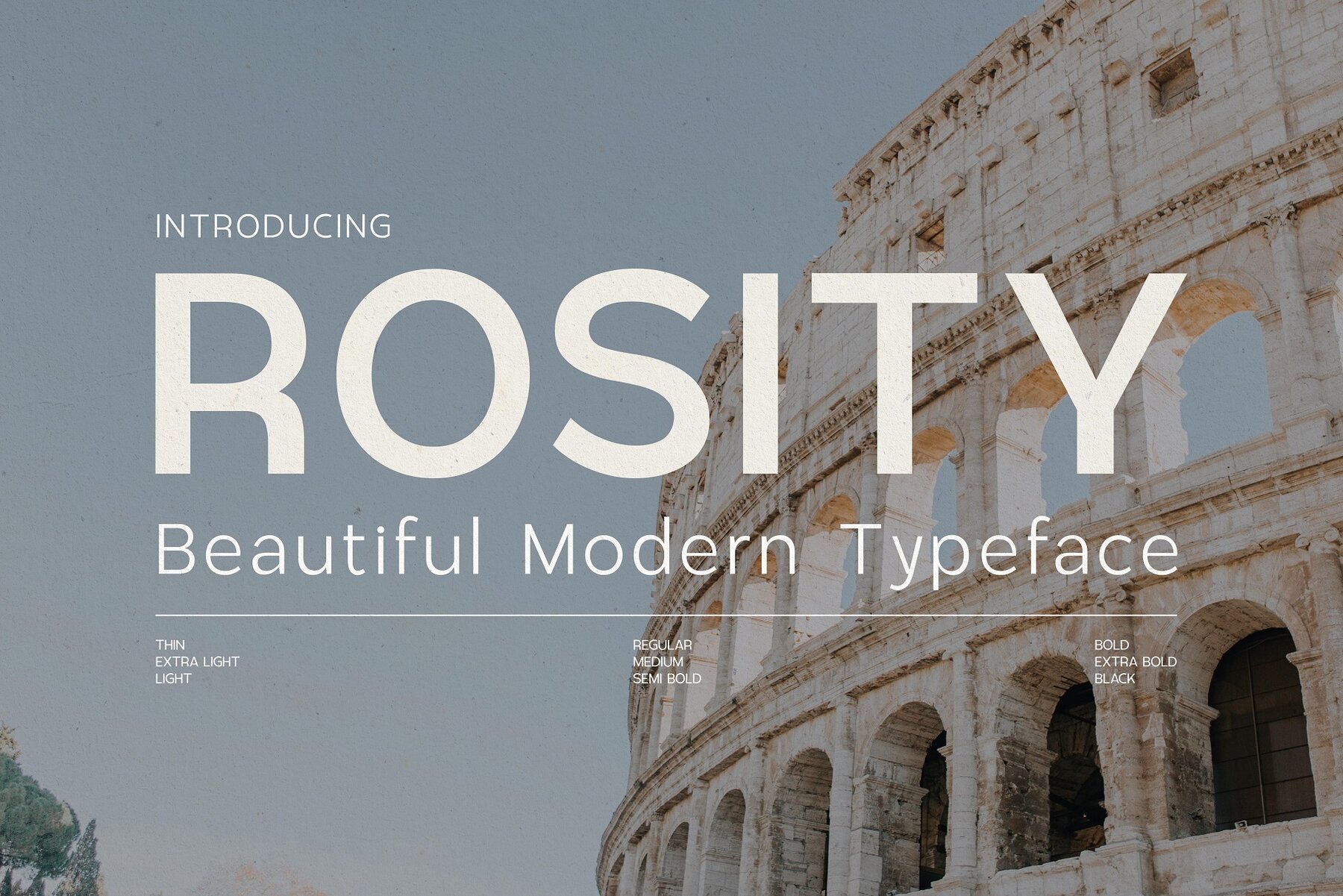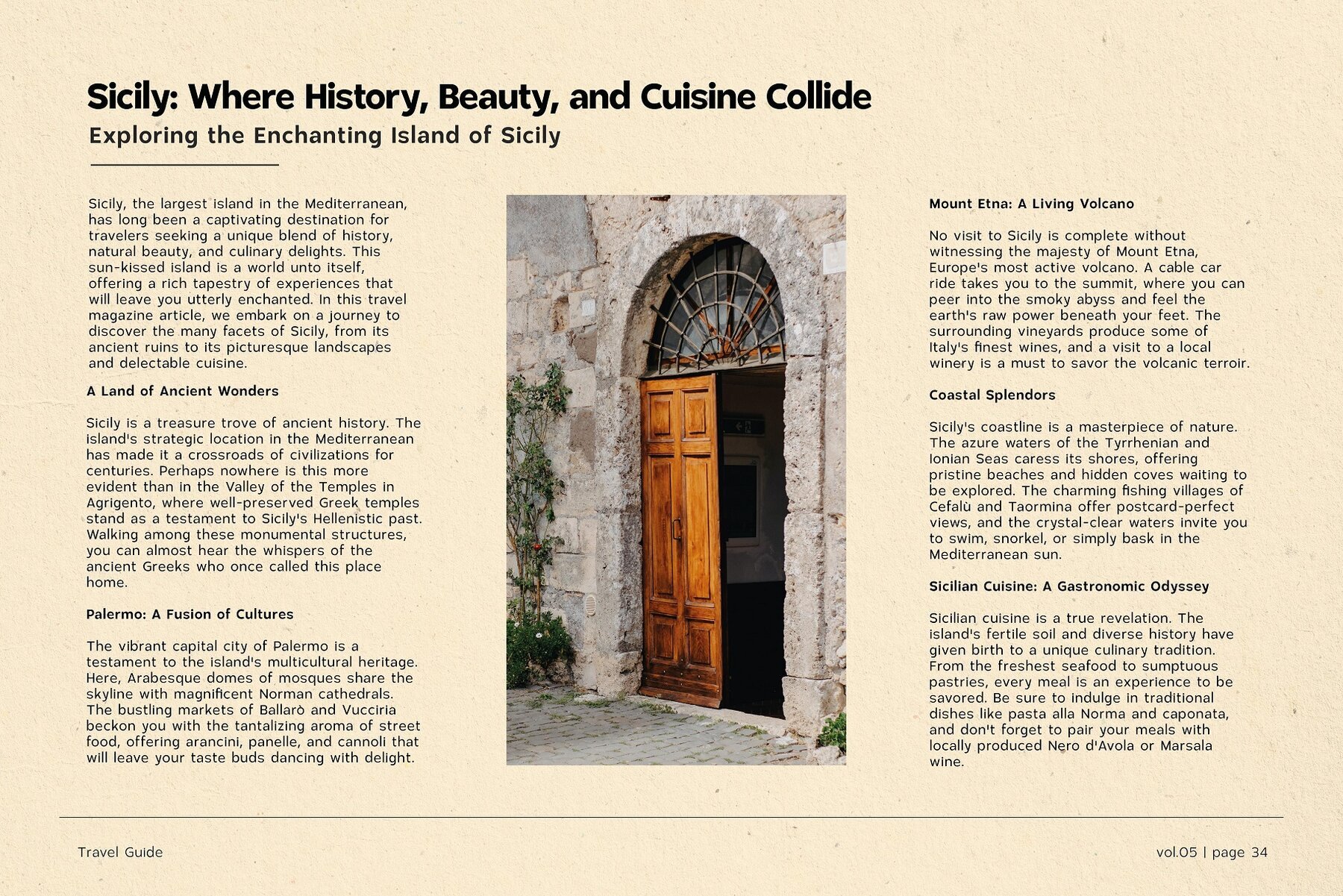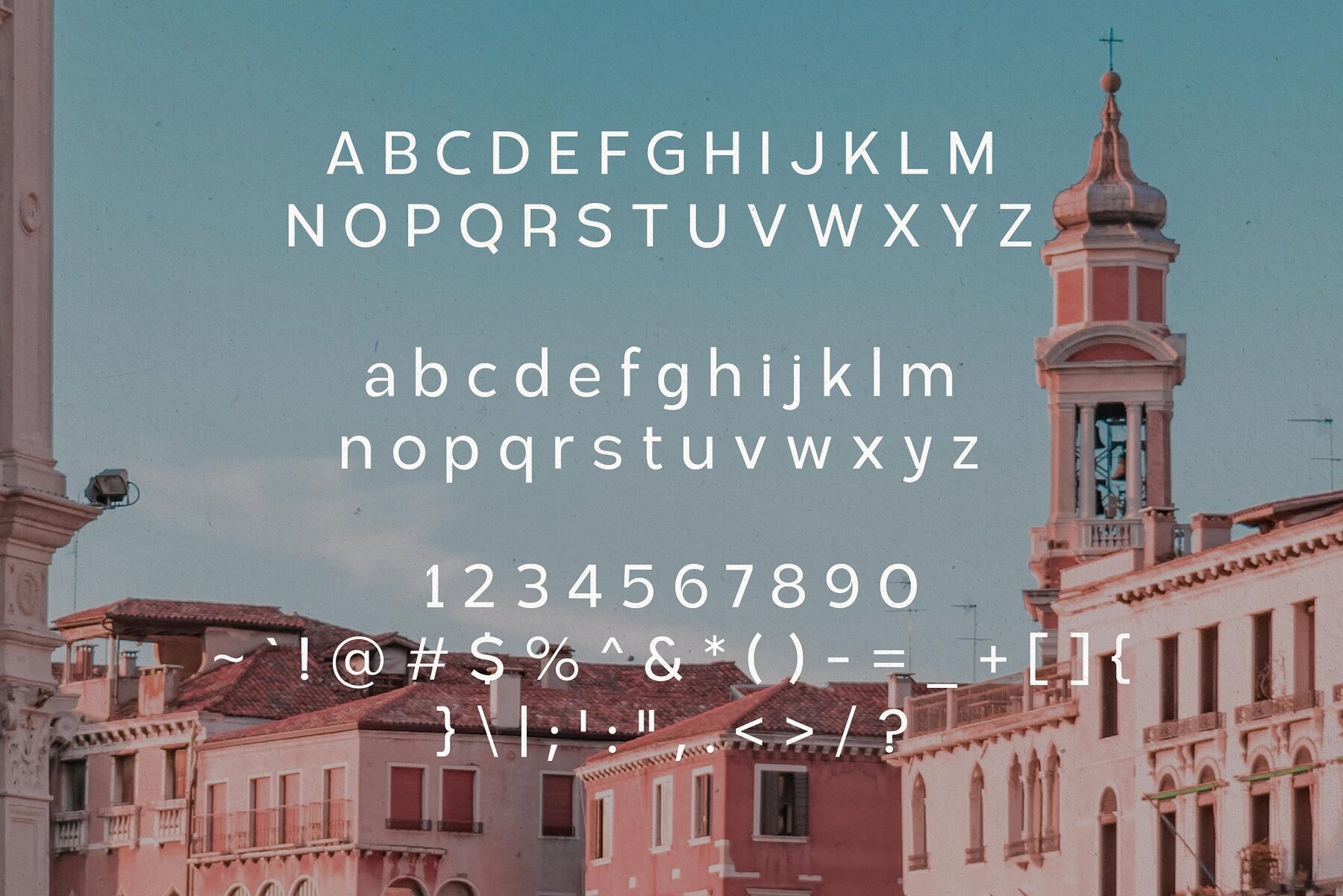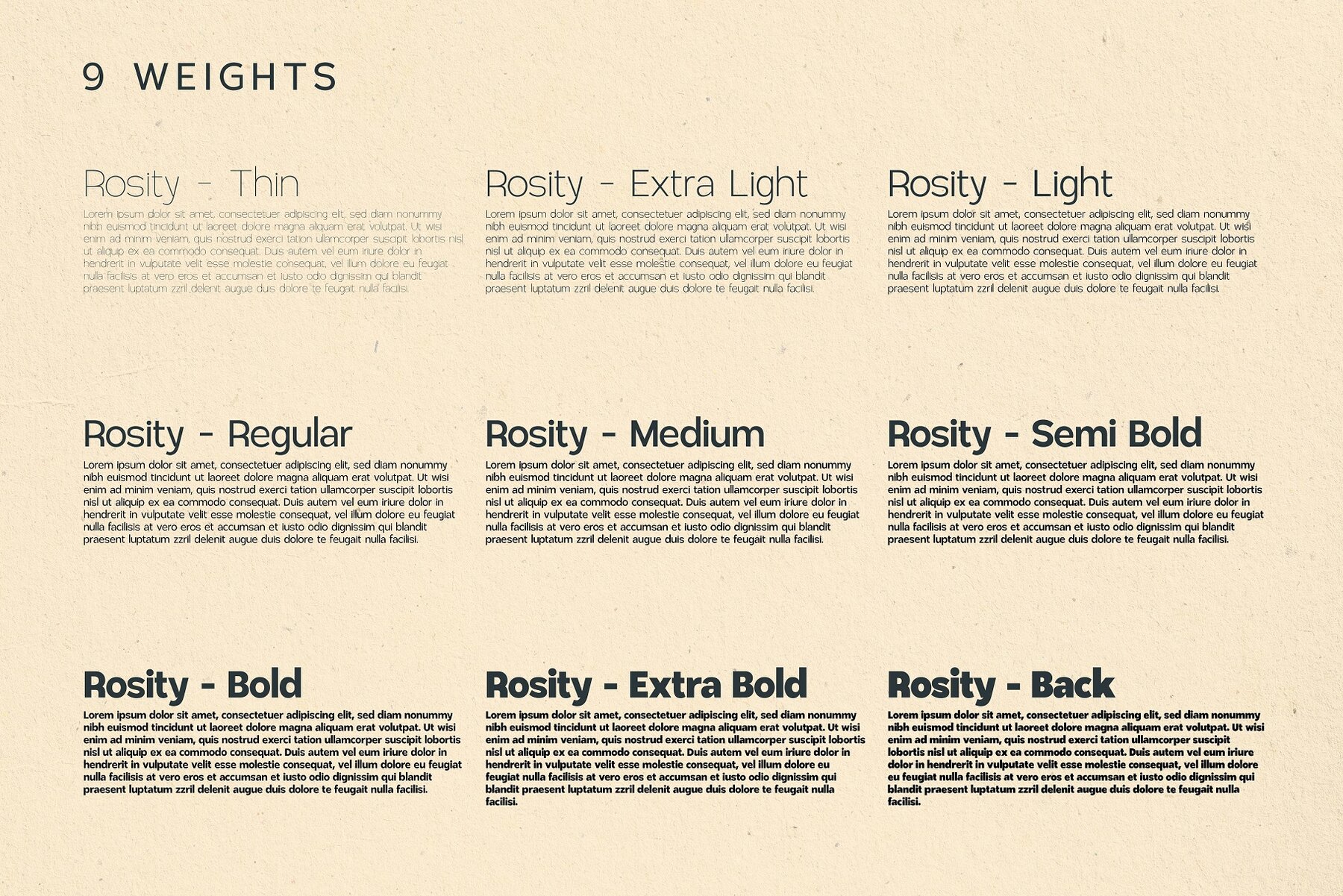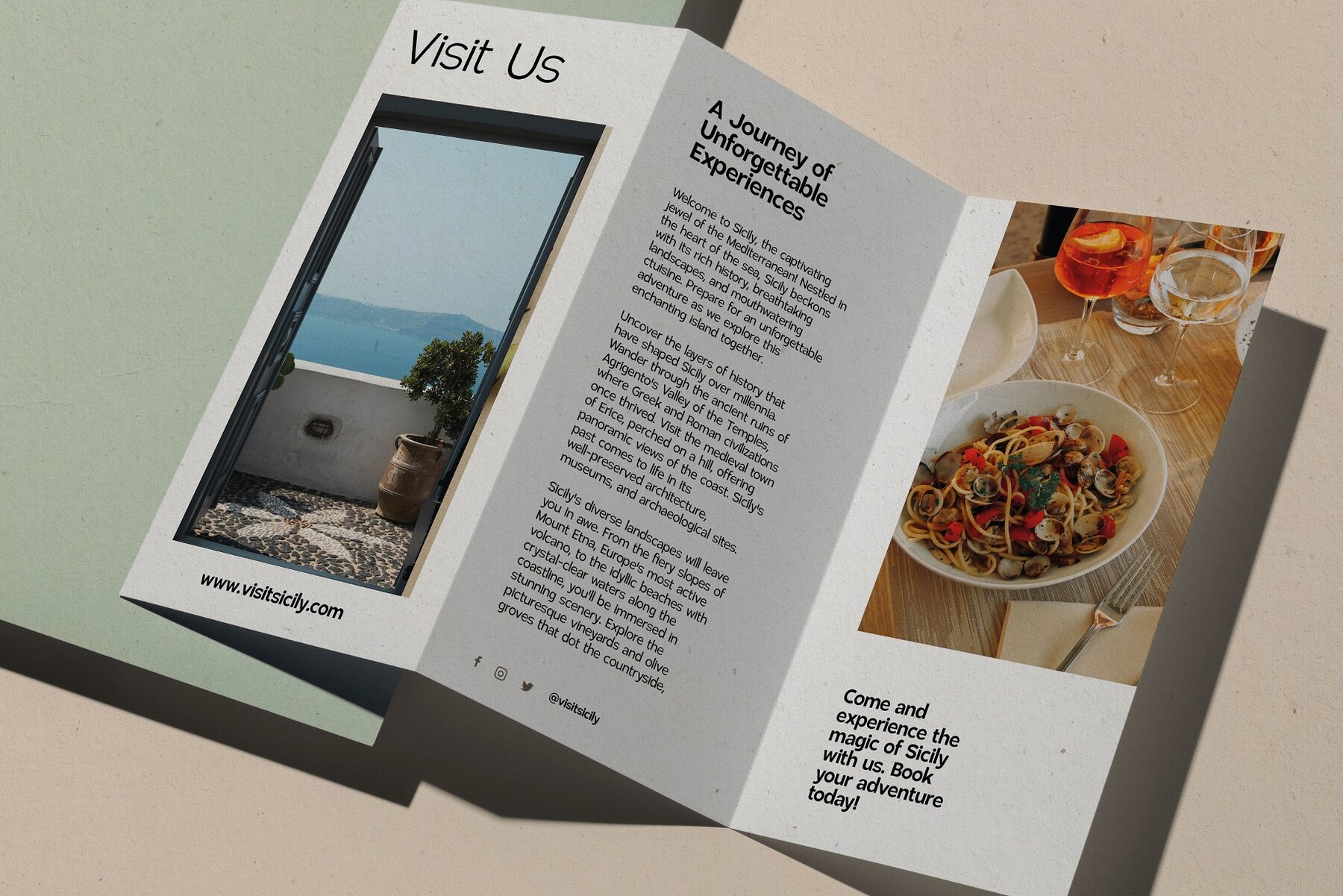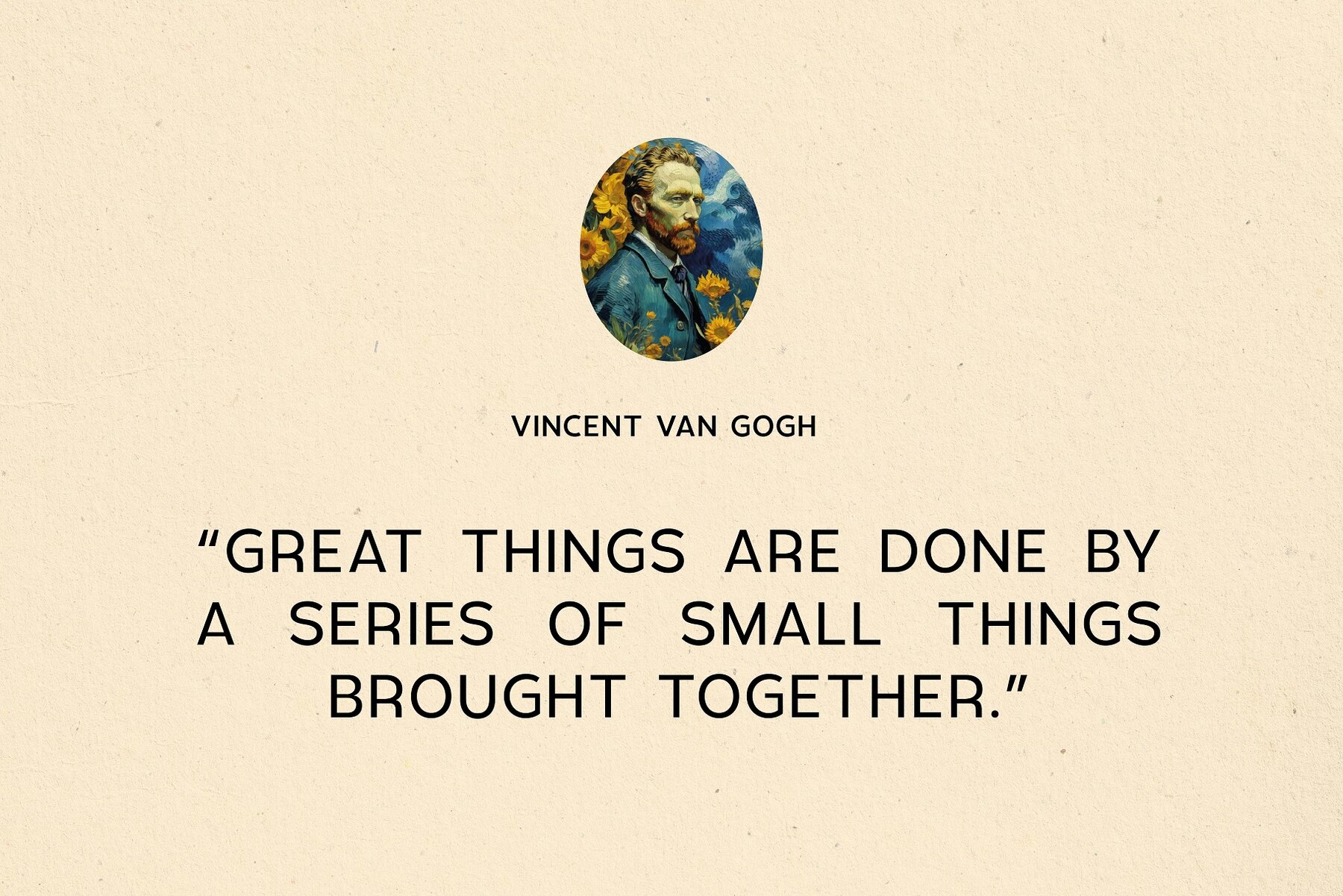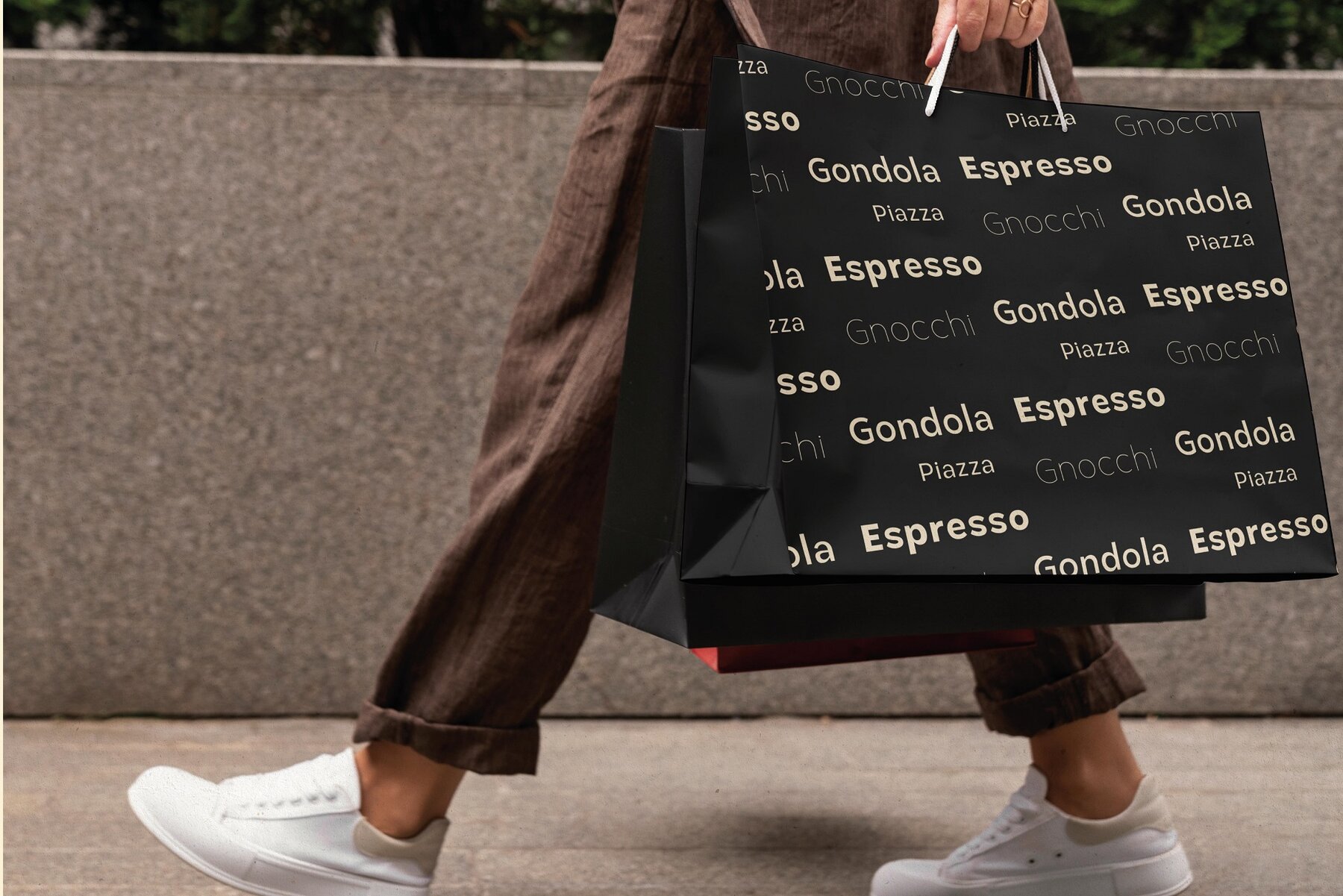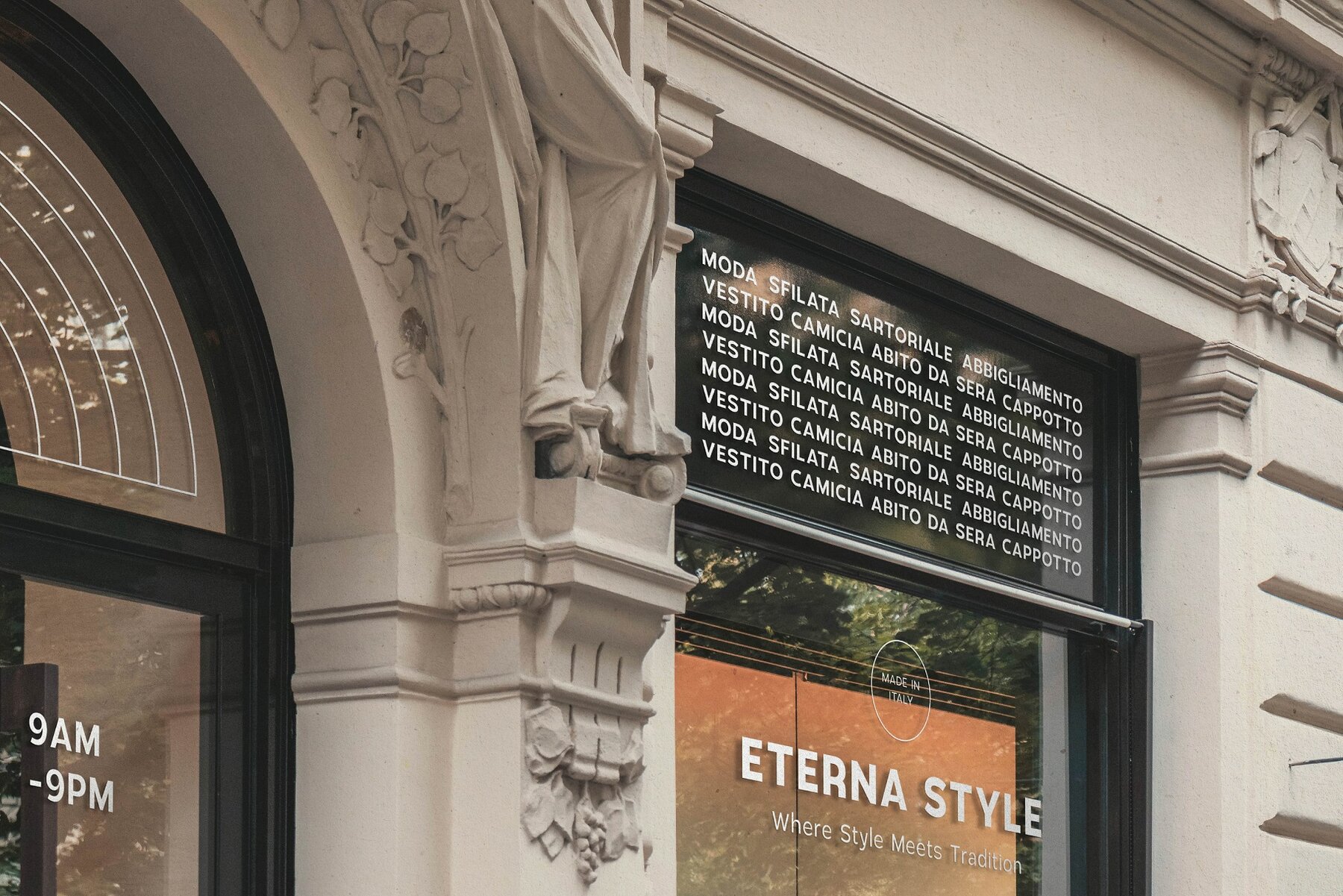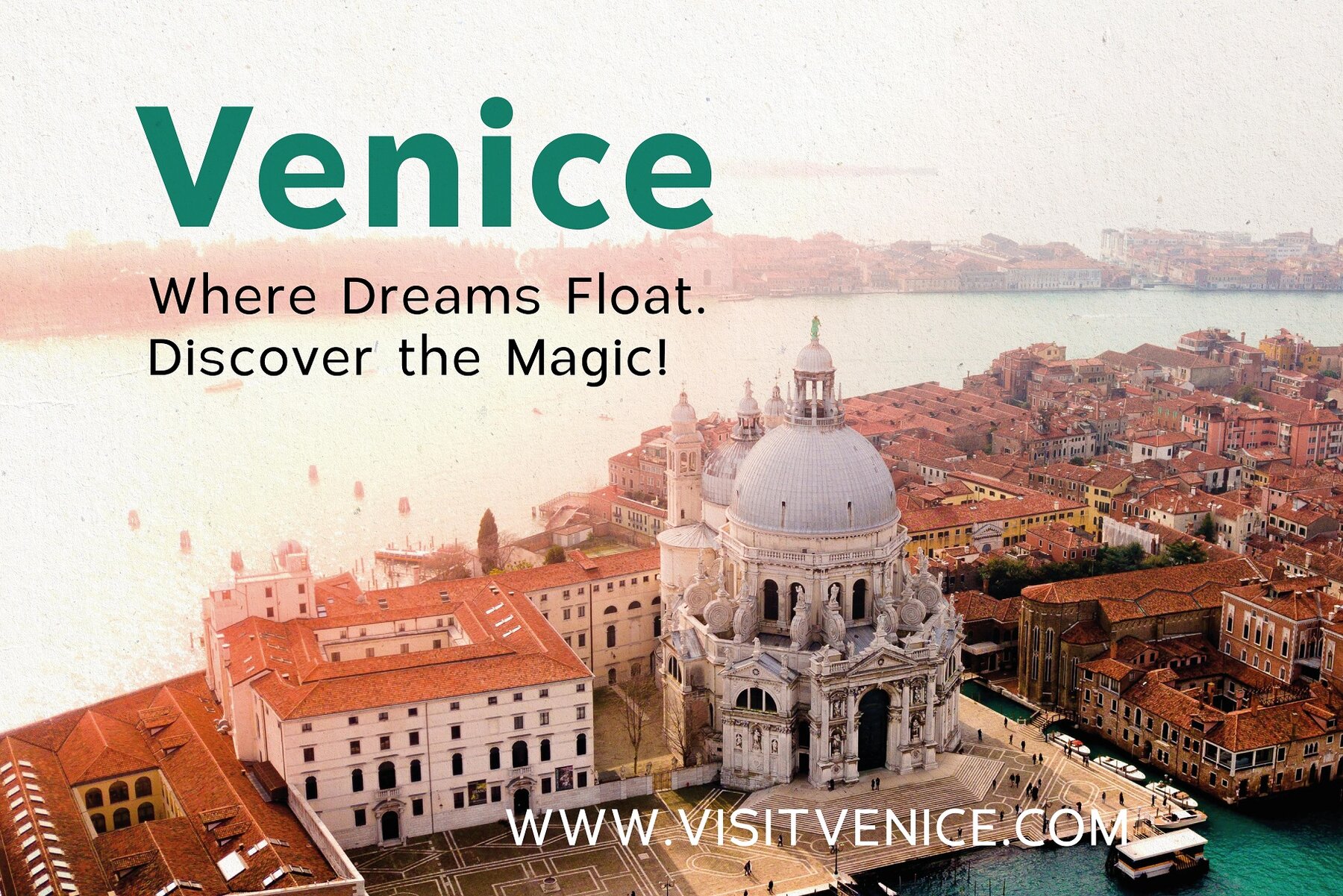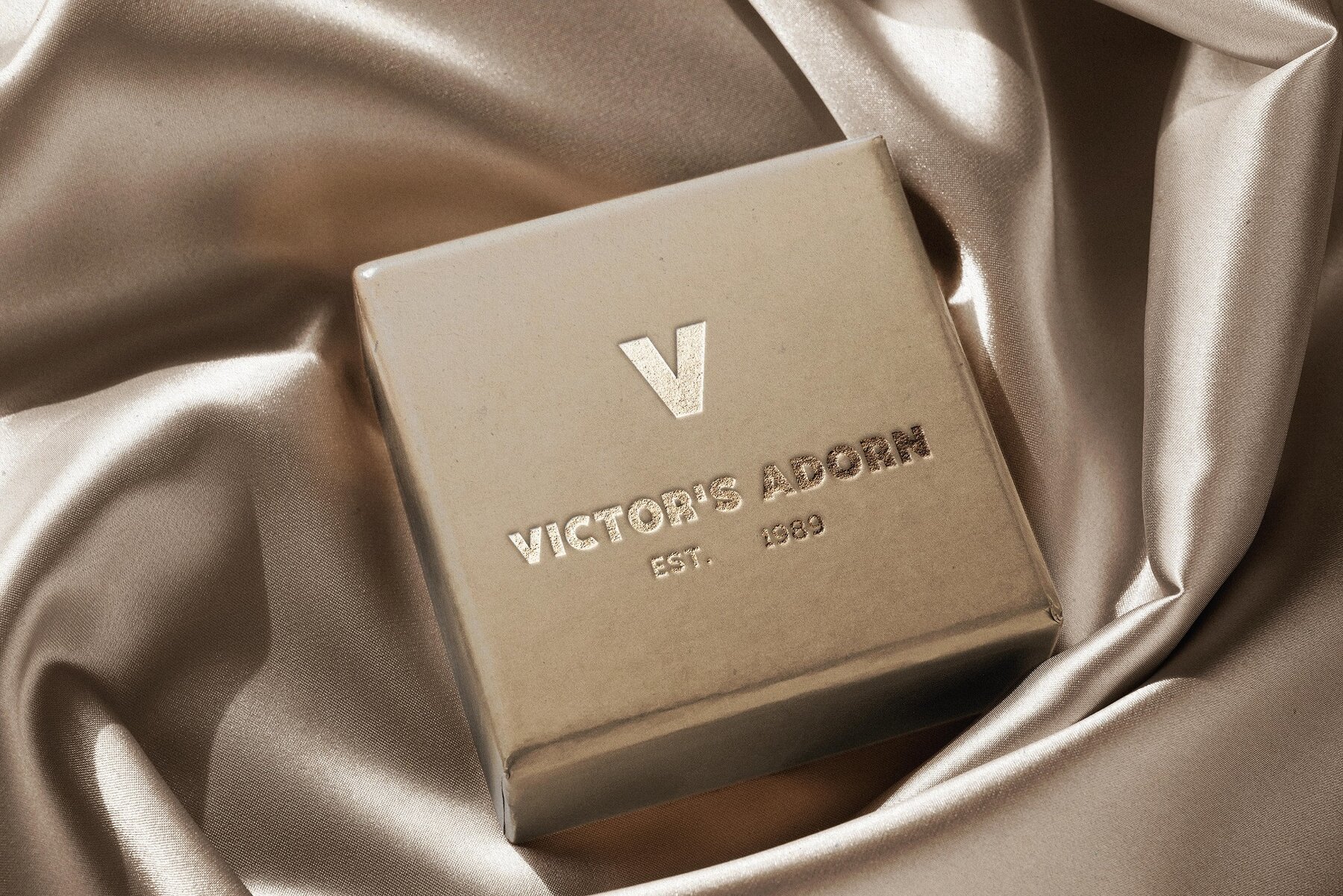
Rosity Font
Introducing Rosity, a captivating modern typeface that is sure to become your go-to choice for elevating your design projects. With its sleek lines, graceful curves, and a versatile range of weights, Rosity effortlessly strikes the perfect balance between sophistication and contemporary style. Rosity’s clean, crisp characters are a testament to its elegance and adaptability, making it the ideal choice for a wide range of design applications. Whether you’re crafting a sleek corporate logo, designing eye-catching marketing materials, or creating a stunning website, Rosity offers the versatility and beauty to enhance your work. Elevate your designs and leave a lasting impression with Rosity’s timeless charm. Don’t miss out on the opportunity to add this modern masterpiece to your font collection. Download Rosity today and experience the transformative power of elegant typography in your creative endeavors.